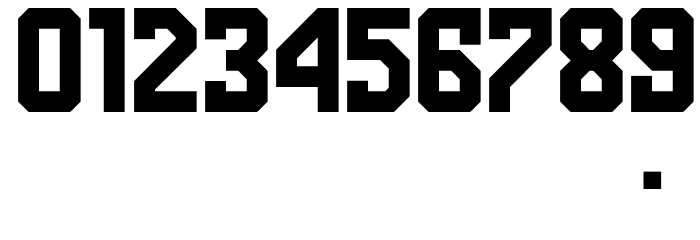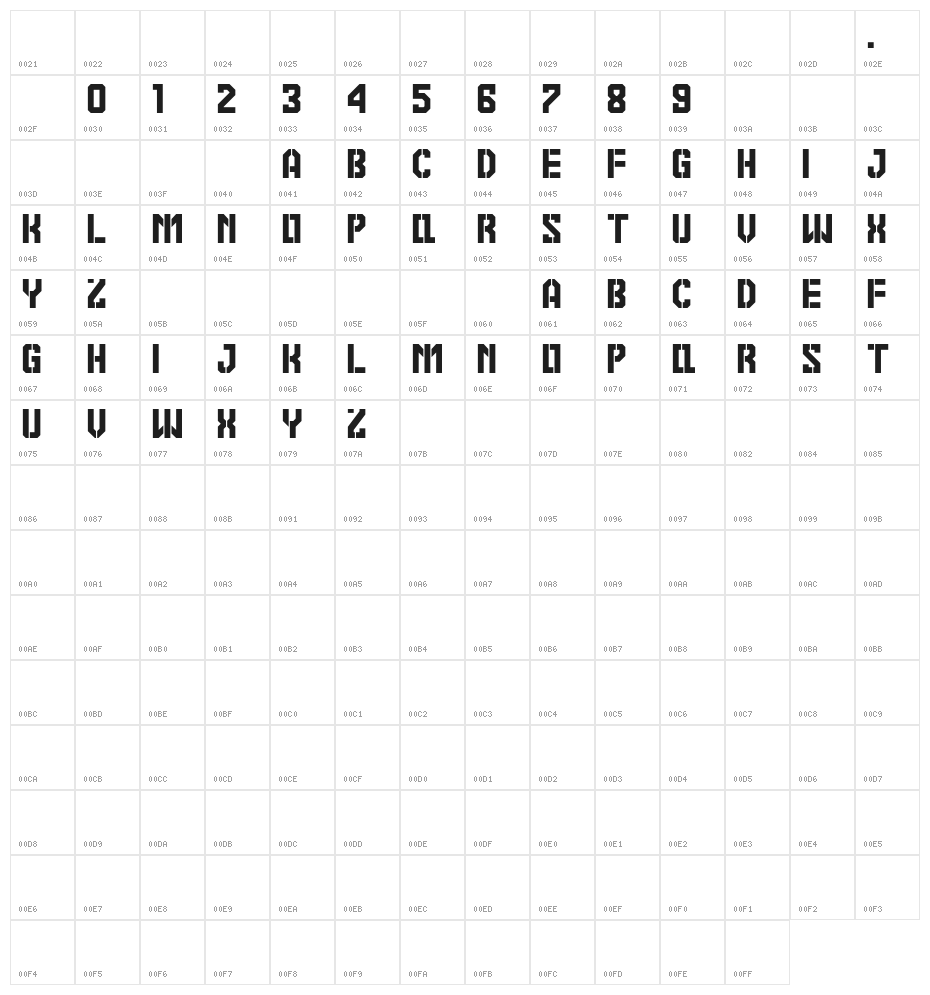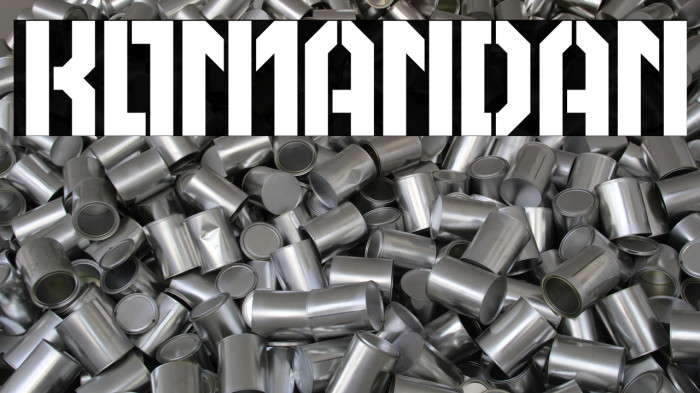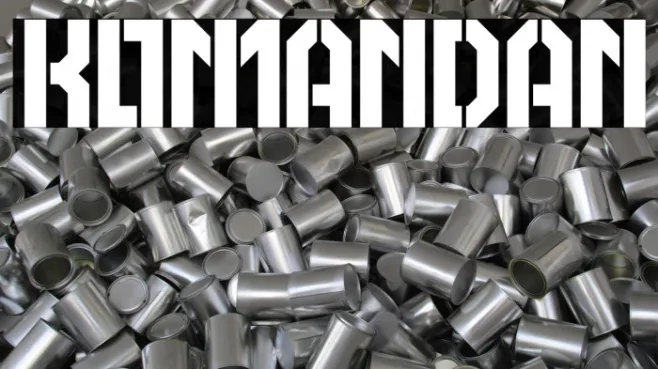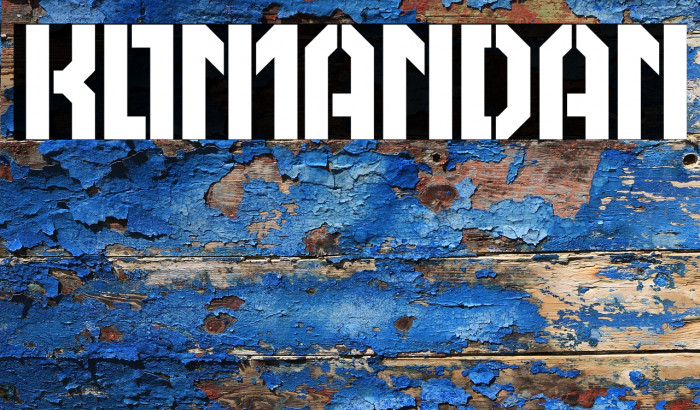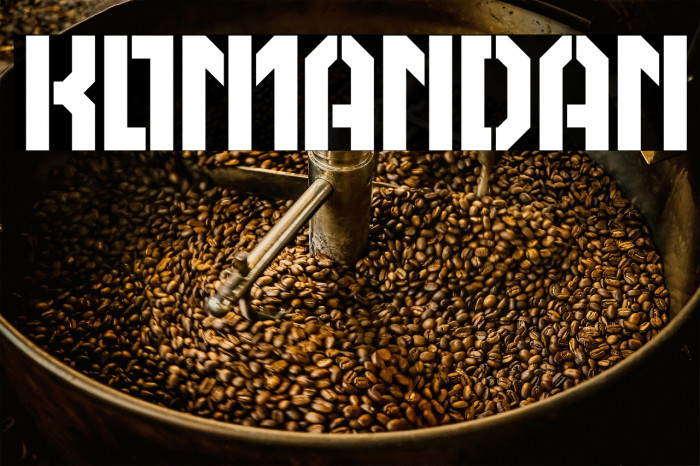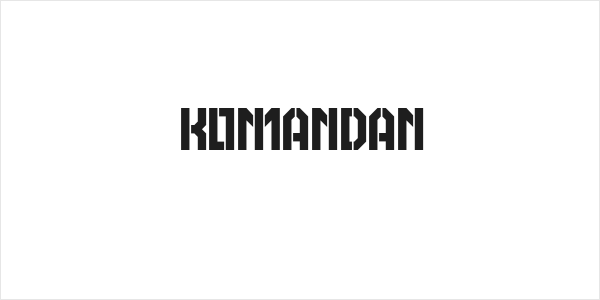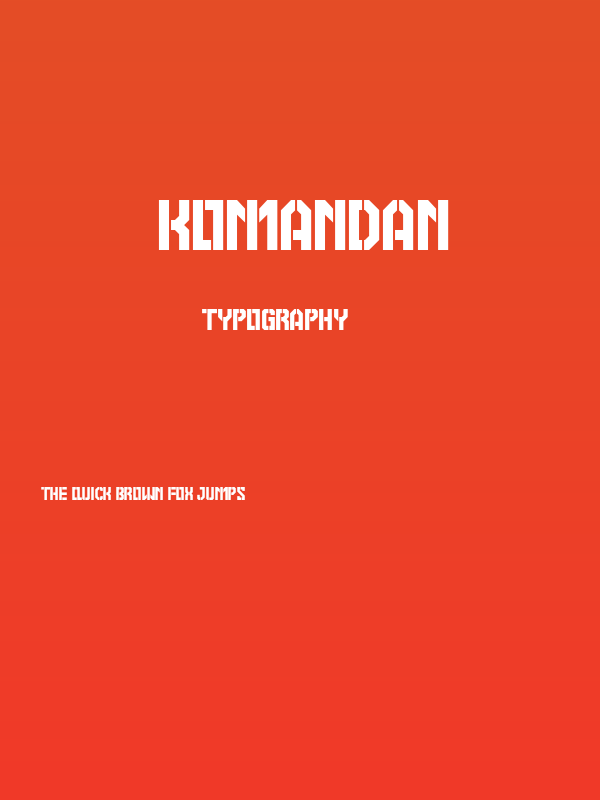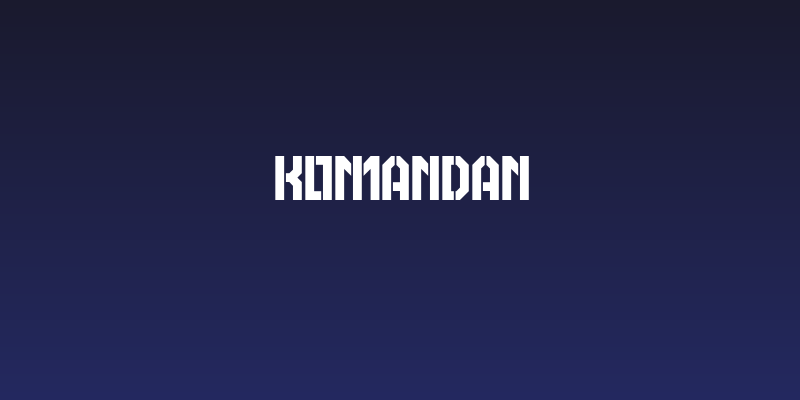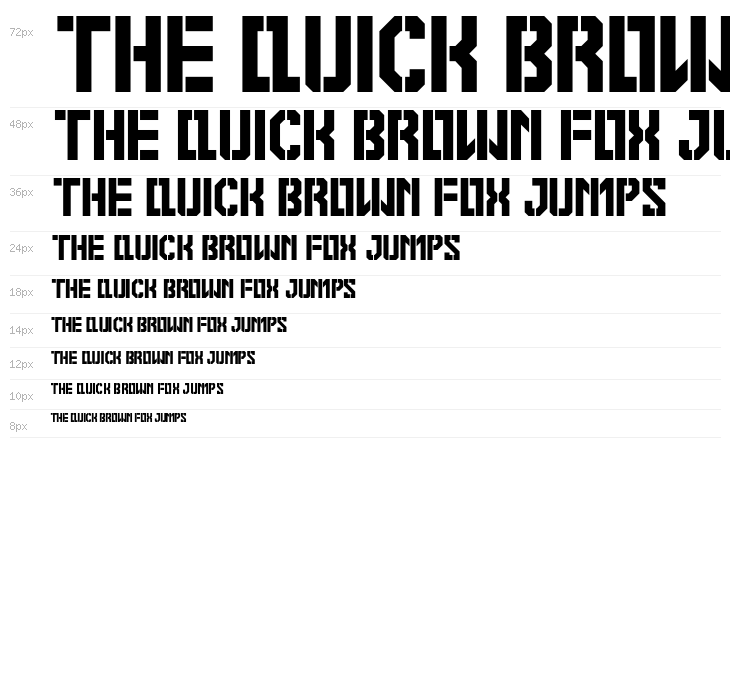
KOMANDAN Font
KOMANDAN Description
This font features a bold, geometric design with a strong, commanding presence. The characters are constructed with sharp angles and straight lines, creating a sense of strength and modernity. The uppercase letters are particularly striking, with a uniform height and width that contribute to a cohesive look. The numbers and special characters maintain this bold aesthetic, ensuring consistency across all elements. The font's style is reminiscent of military or industrial themes, making it ideal for projects that require a robust and impactful visual statement.
| Proposed Projects | Ideal for military-themed designs, industrial branding, posters, and impactful headlines. |